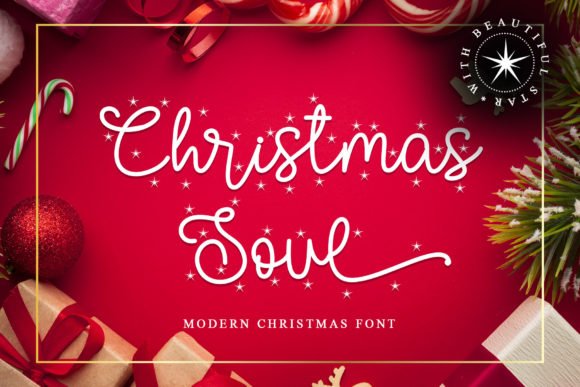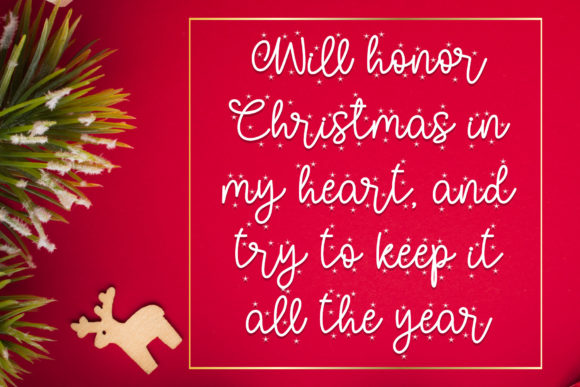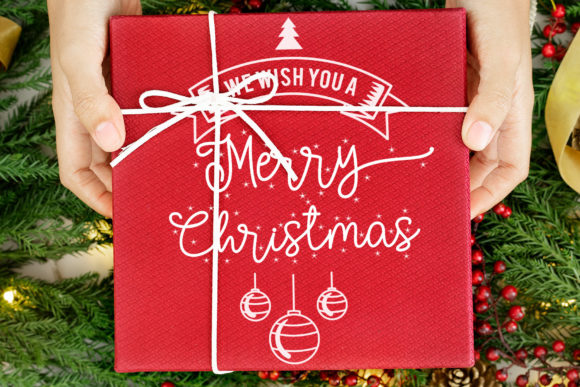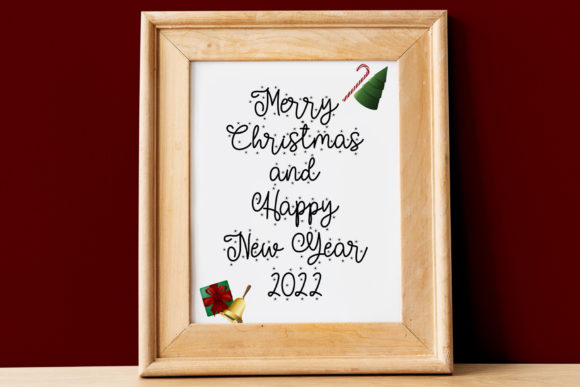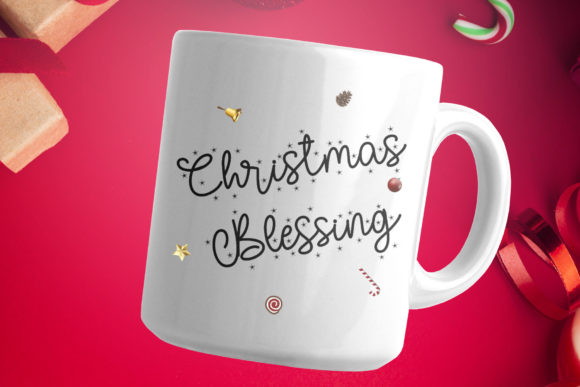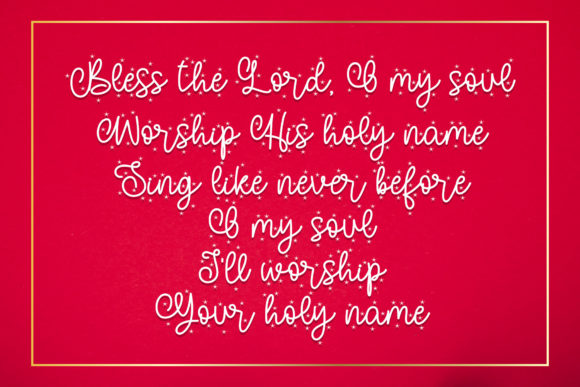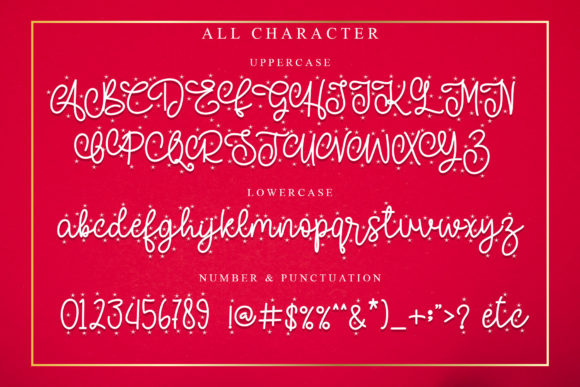
That’s where the Christmas Soul Font comes in – a delicate, handwritten font that adds a touch of warmth and elegance to any project. Whether you’re designing holiday cards, branding, or labels, this font is sure to elevate your creations and make them truly special. With its PUA encoding, you’ll have access to all the amazing glyphs and ligatures, making it a valuable tool for designers looking to add a personal touch to their work.
Christmas Soul Font Key Features
- Size: 12 styles (Regular, Italic, Bold, Bold Italic, Light, Light Italic, Outline, Outline Italic, Shadow, Shadow Italic, Strike, Strike Italic)
- Resolution: Supports up to 72,000 points, making it suitable for large-scale signage and advertising
- Unique Characteristics: Features a festive, handwritten style with intricate details and flourishes, perfect for creating a warm and inviting atmosphere during the holiday season
- Character Set: Includes a wide range of characters, including Latin, Cyrillic, Greek, and punctuation marks, ensuring compatibility with various languages and scripts
- Font Width: Approximately 700-800 characters per font, making it easy to use and navigate
Designer Review: Christmas Soul Font
✨ I have to say, I was immediately drawn to the warm and cozy vibe of the Christmas Soul Font. The designers have done an excellent job of capturing the essence of the holiday season with this beautiful script font. The flowing lines and gentle curves evoke a sense of nostalgia and tradition.
✨ One of the standout features of this font is its versatility. It works well for a variety of applications, from greeting cards and gift tags to social media posts and website headers. The font is also highly customizable, allowing users to adjust the size, color, and spacing to suit their needs.
⚠️ One potential drawback of the Christmas Soul Font is its limited character set. While it includes a wide range of Latin characters, it may not be suitable for languages that require a broader character set. Additionally, the font’s design may not be suitable for very small text sizes, as the lines can become difficult to read.
I’m really impressed with the Christmas Soul Font, and I think it’s a great addition to any designer’s toolkit. While it may have some limitations, its unique design and versatility make it a great choice for anyone looking to add a touch of holiday magic to their designs.
- Beautiful script font with a warm and cozy vibe
- Versatile for a variety of applications
- Limited character set may not be suitable for all languages
- May not be suitable for very small text sizes
The Christmas Soul Font is perfect for:
- Creating holiday invitations and greeting cards. Alternatives to Christmas Soul Font for Designers
- Choose a warm and inviting background image, such as a snowy landscape or a crackling fireplace.
- Use the Christmas Soul Font to add a touch of elegance and sophistication to your card’s text, such as the recipient’s name or a special message.
- Combine the font with festive holly patterns or subtle snowflakes to add a playful touch.
- Pair the Christmas Soul Font with a minimalist color palette, featuring soft greens and reds, to create a cohesive and harmonious design.
- Add a sprinkle of glitter or texture to give your card a tactile feel and make it stand out.
Q: Can I customize the Christmas Soul Font to fit my specific design needs?
Yes, the Christmas Soul Font is a highly customizable font. You can use font editing software, such as FontForge or Adobe Illustrator, to modify the font’s characteristics, including letter spacing, kerning, and character styles. However, please note that any modifications may affect the font’s overall appearance and compatibility.